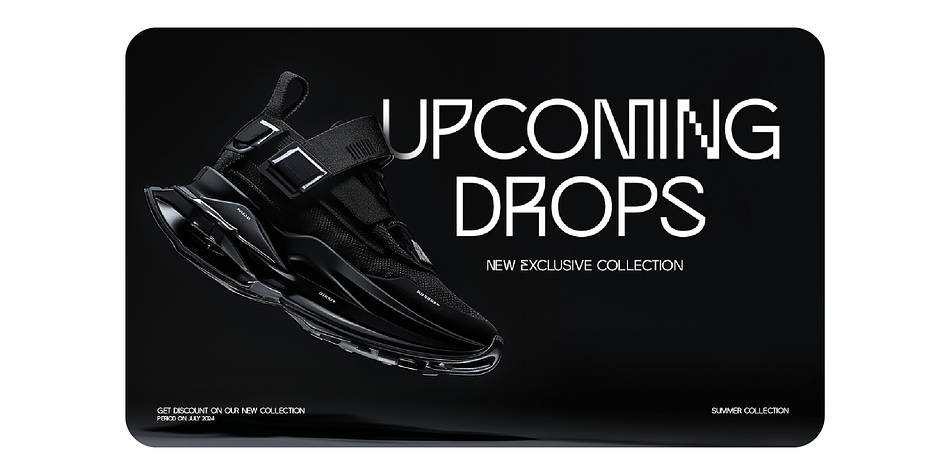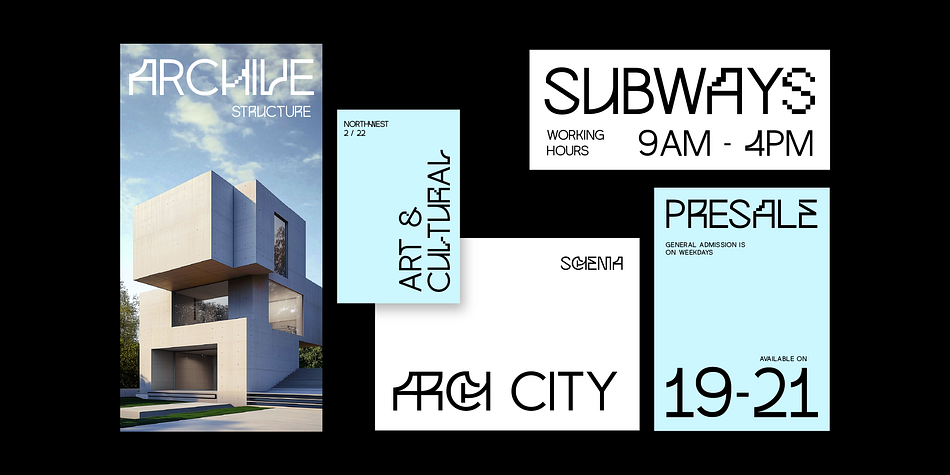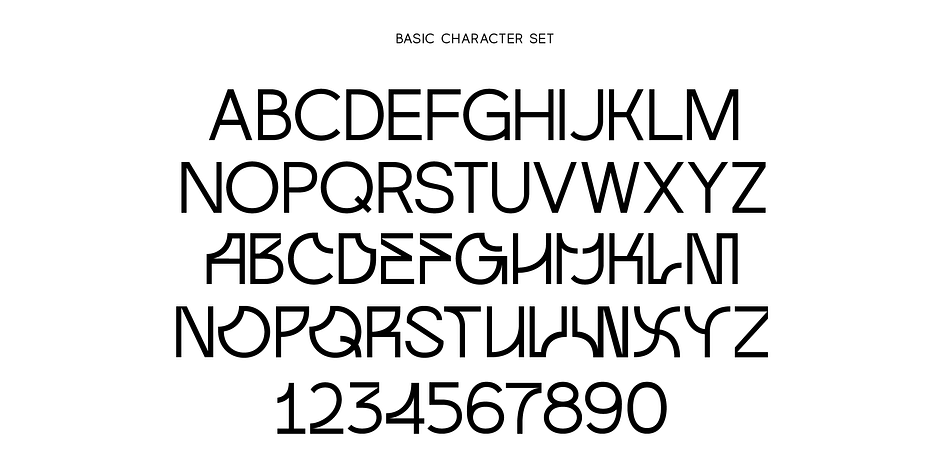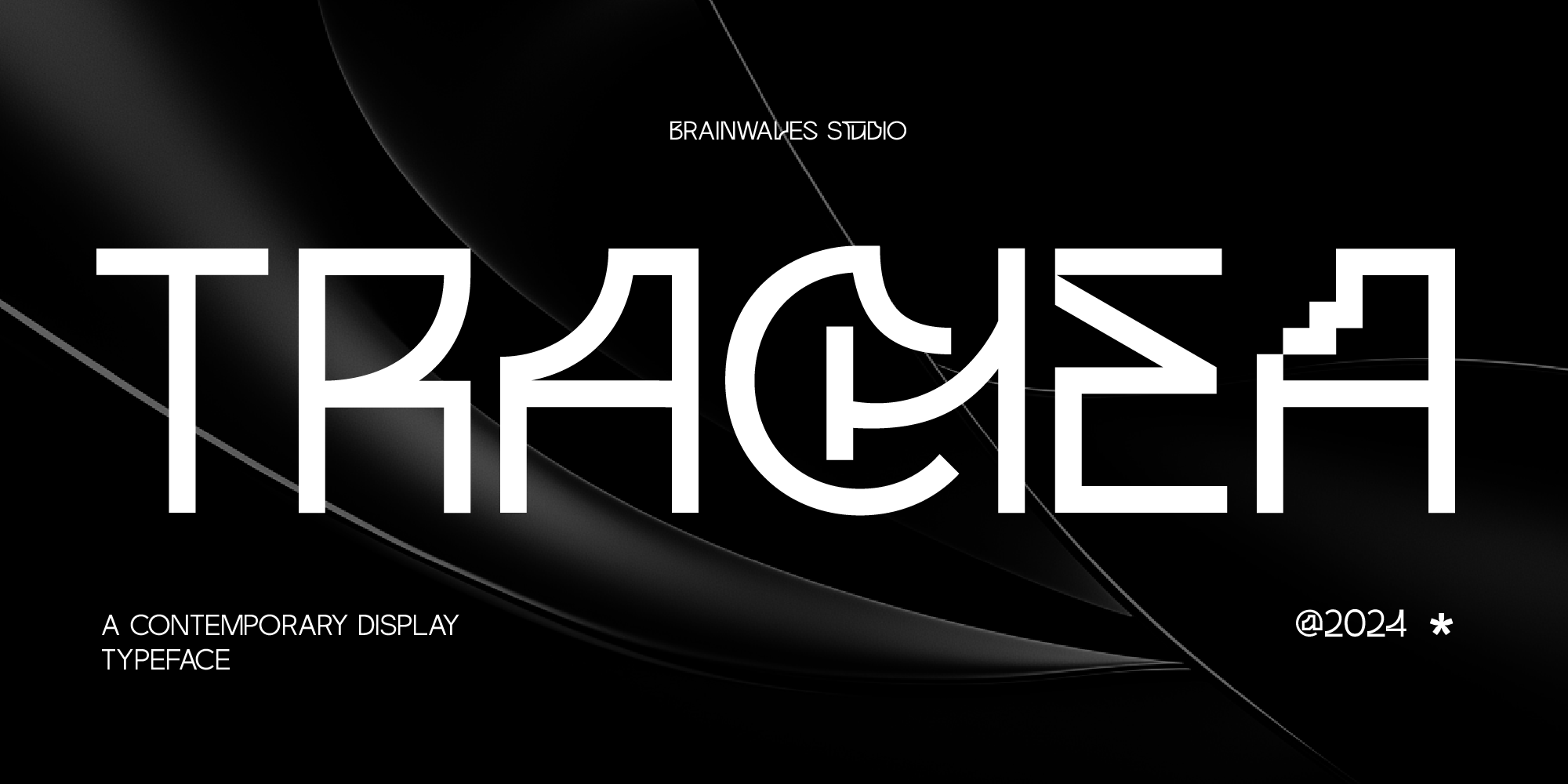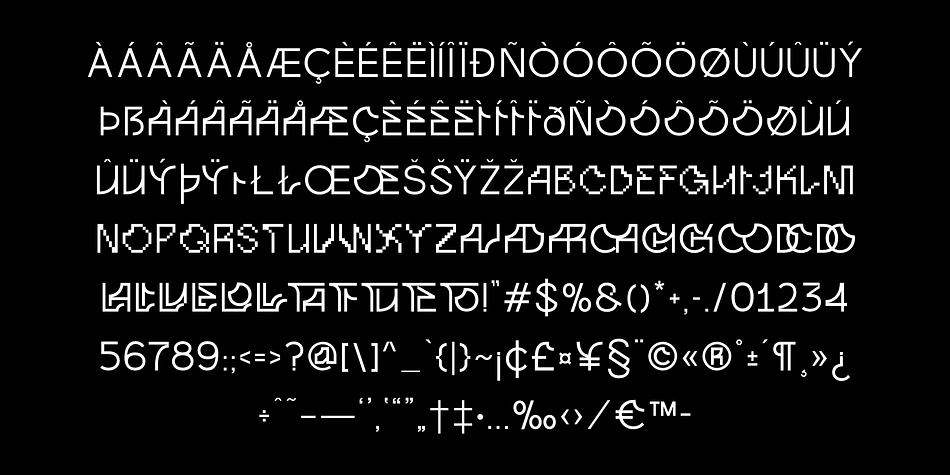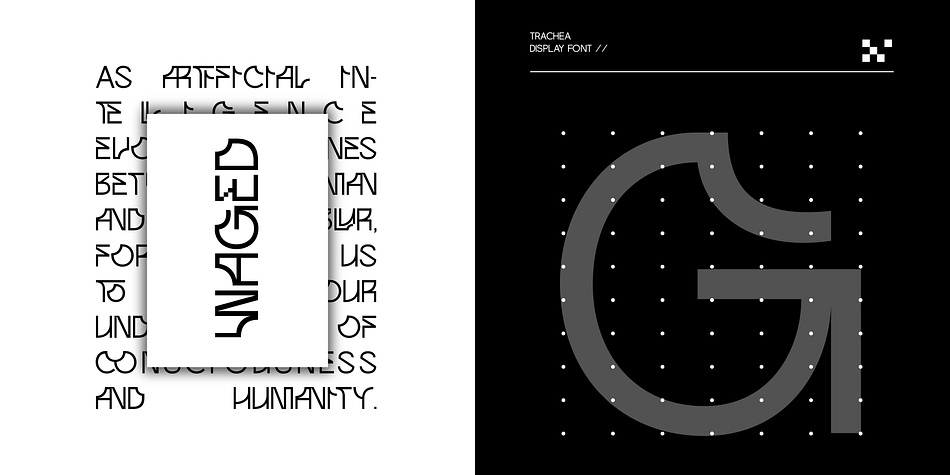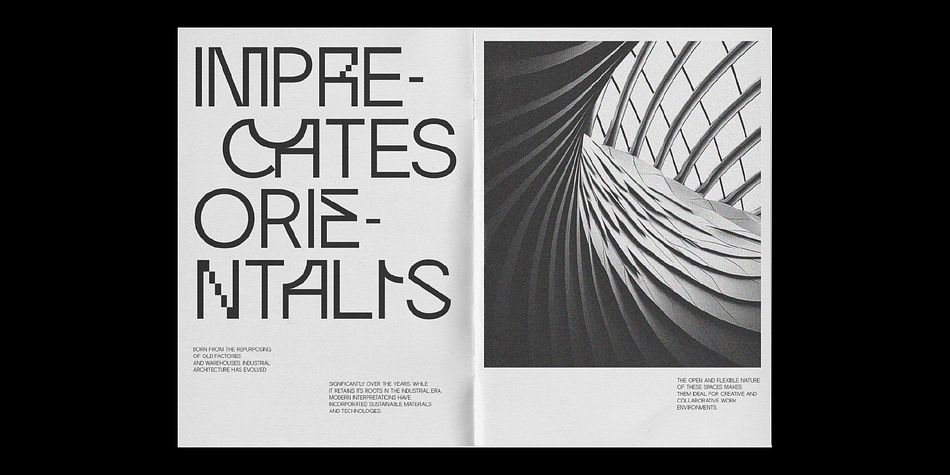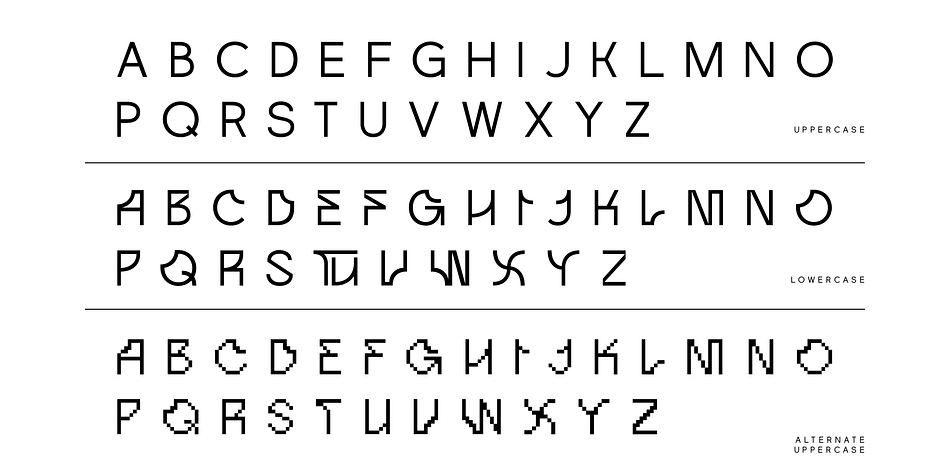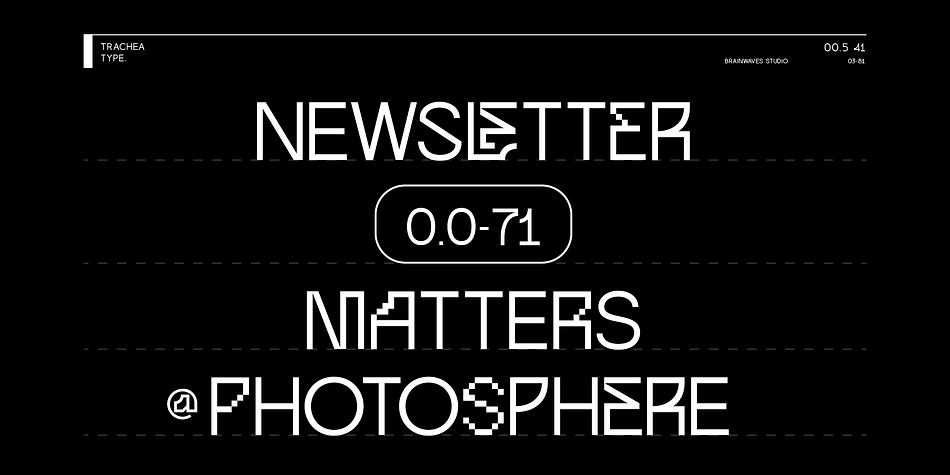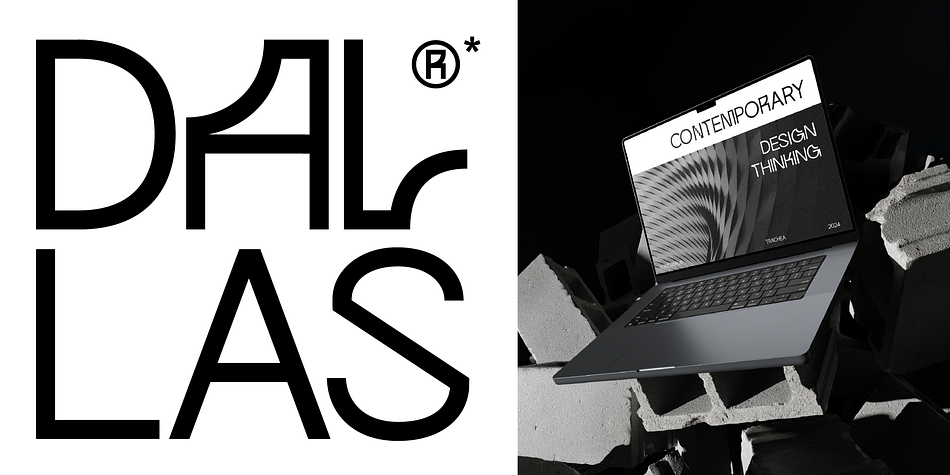
Trachea
Designed by Anggil Sukma, Trachea is a display sans font family. This typeface has two styles and was published by Brainwaves Studio.
Trachea is a modern sans-serif font with a unique, creative edge. With its distinct shapes and alternate pixel-style options, Trachea offers endless possibilities for creating standout, visually engaging designs. Perfect for those seeking a versatile font to add a fresh, bold twist to their creative projects.